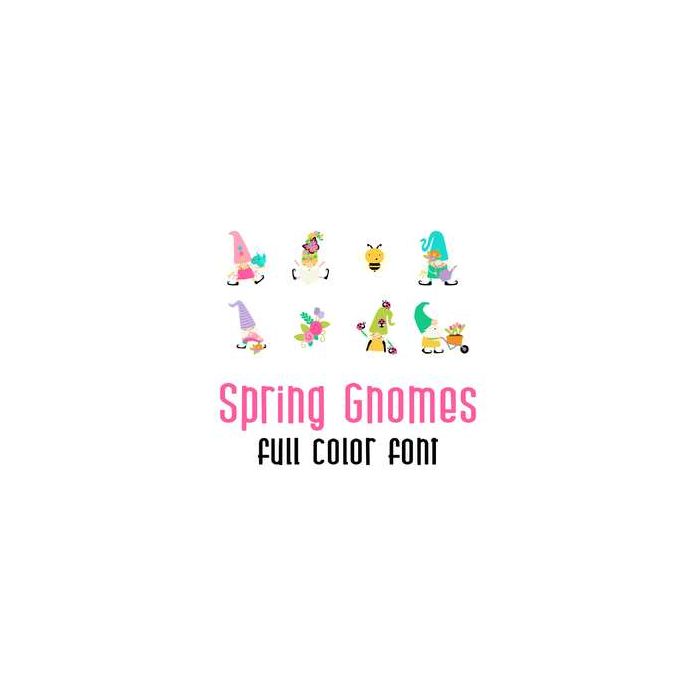
This adorable full color doodlebat font features 26 gnomes ready for Spring. Perfect for cards, crafts, gifts, decor, scrap book pages, planner stickers and more!